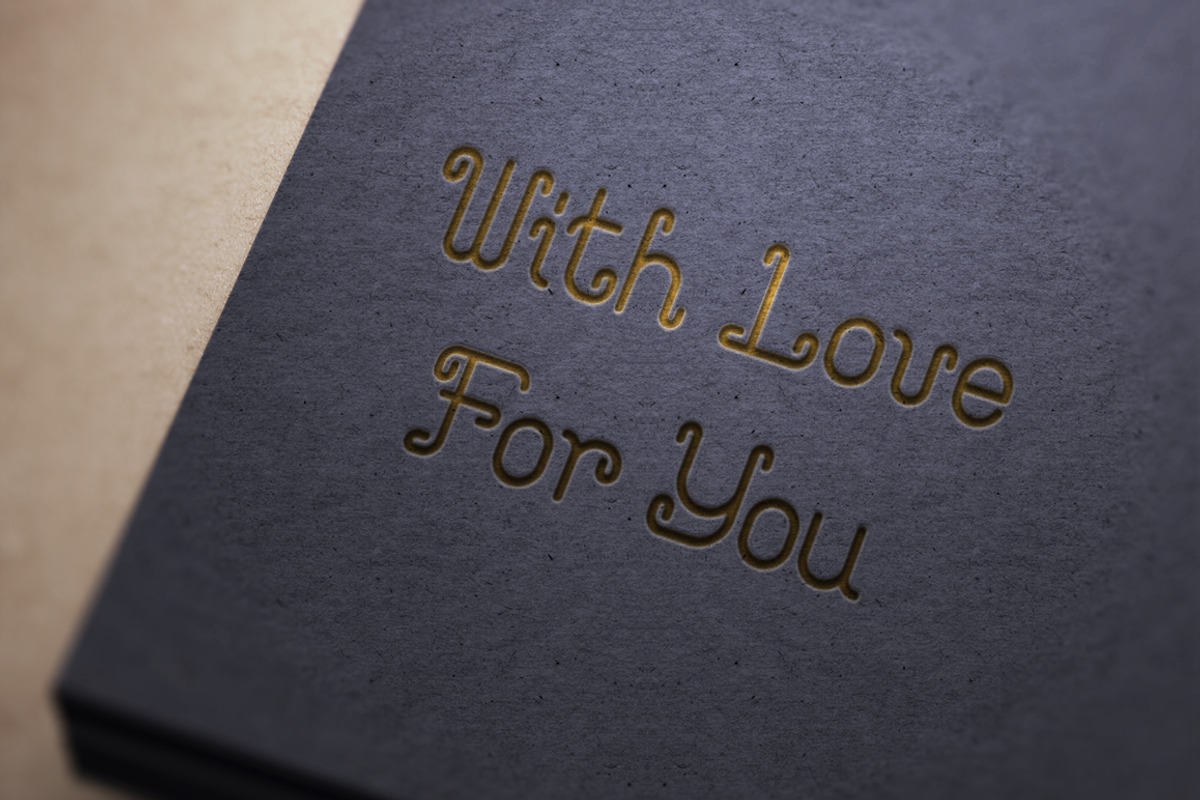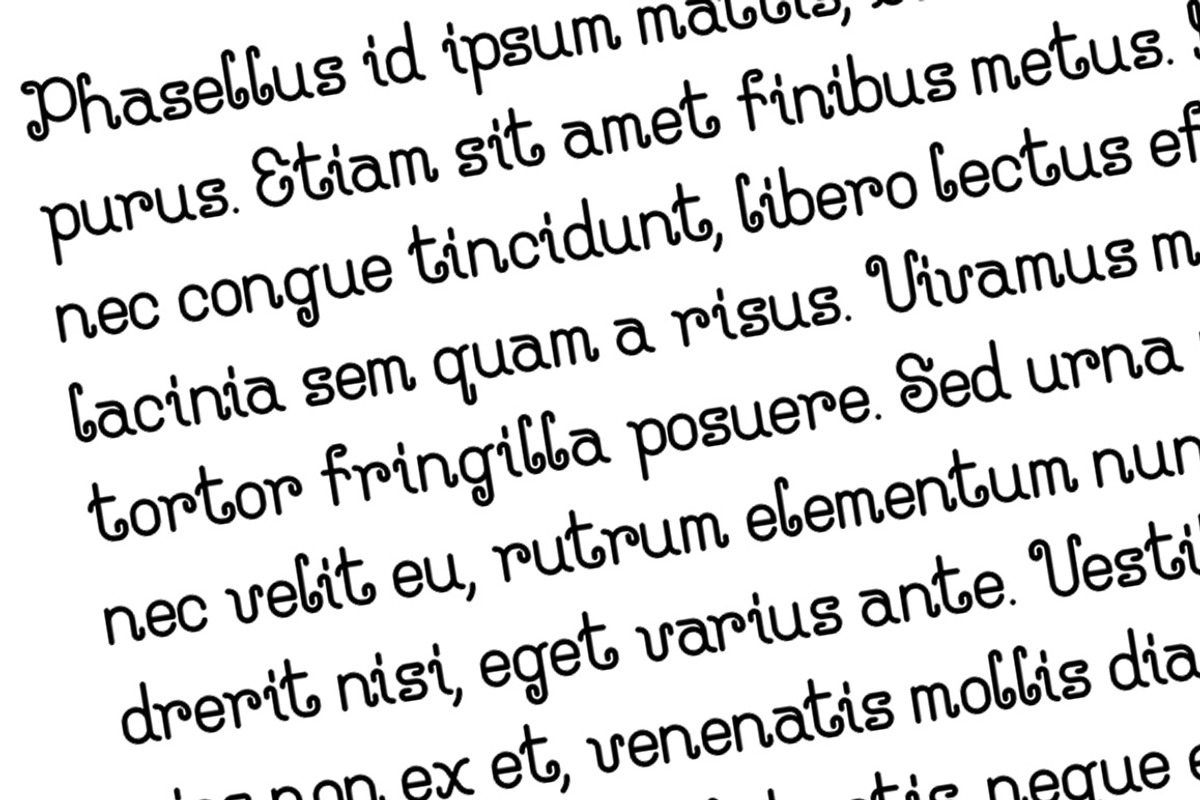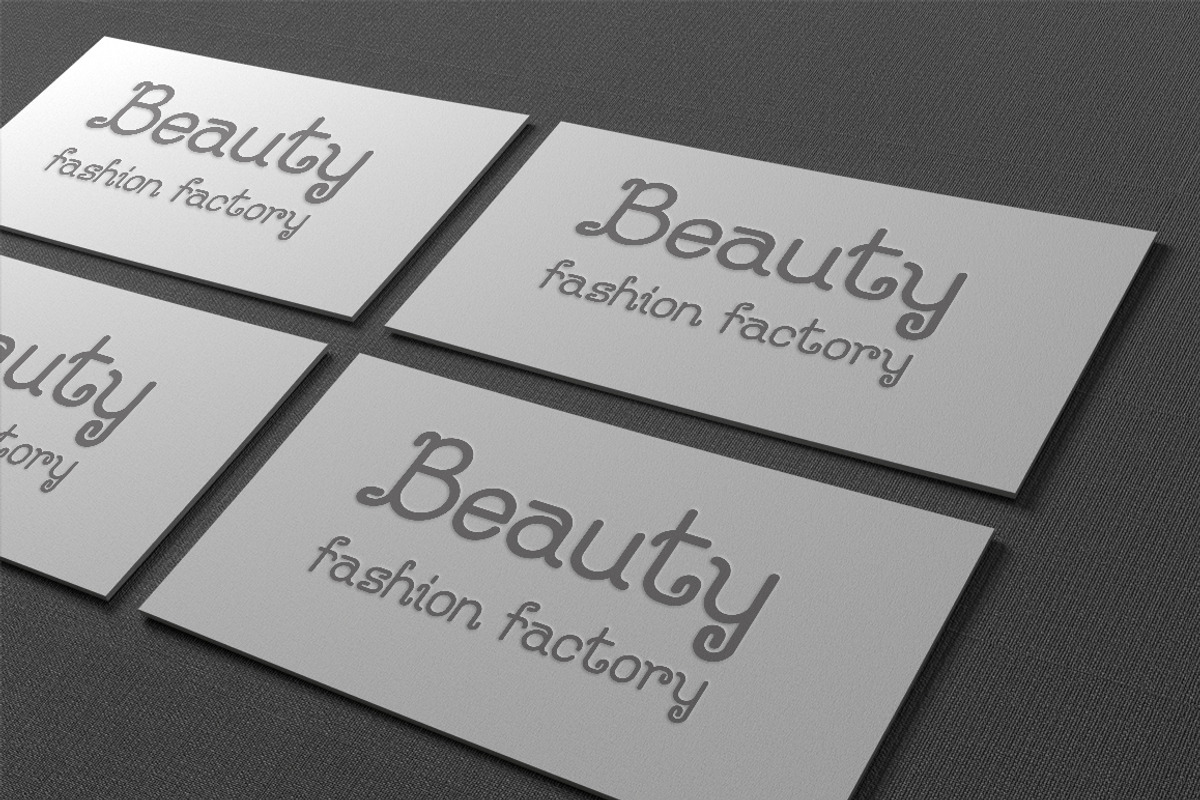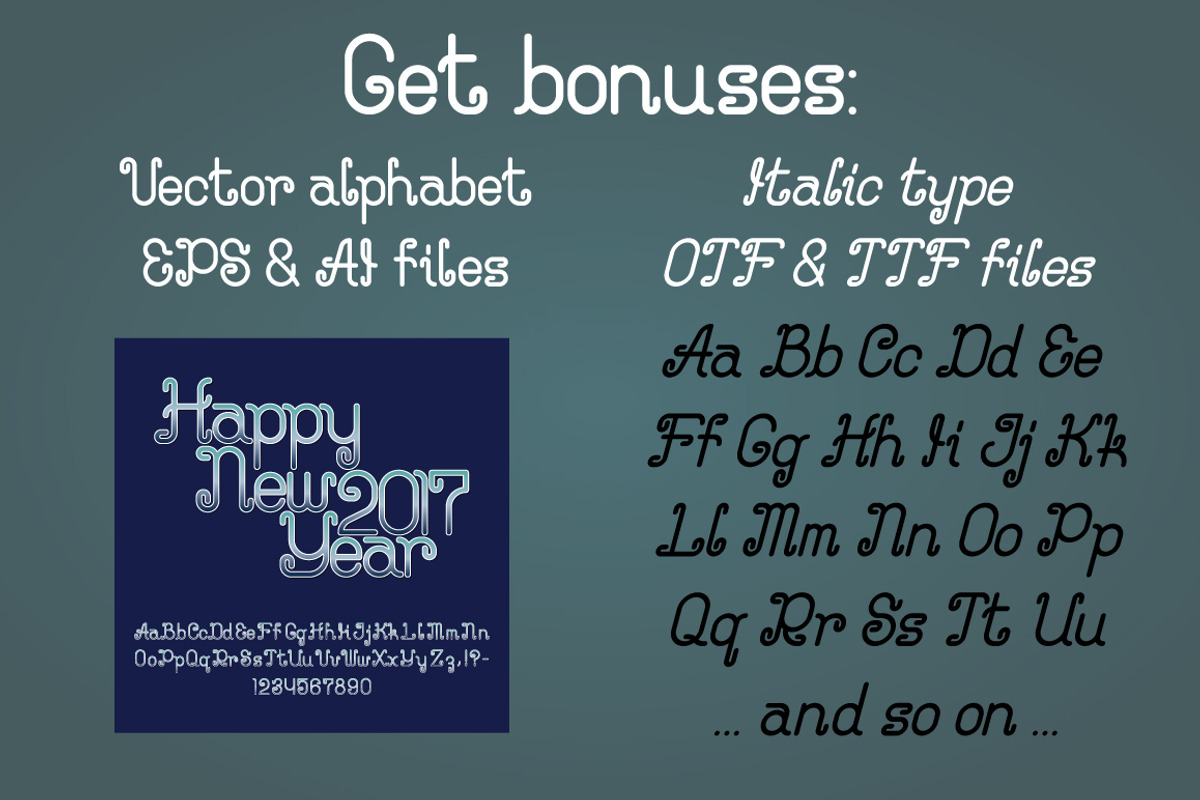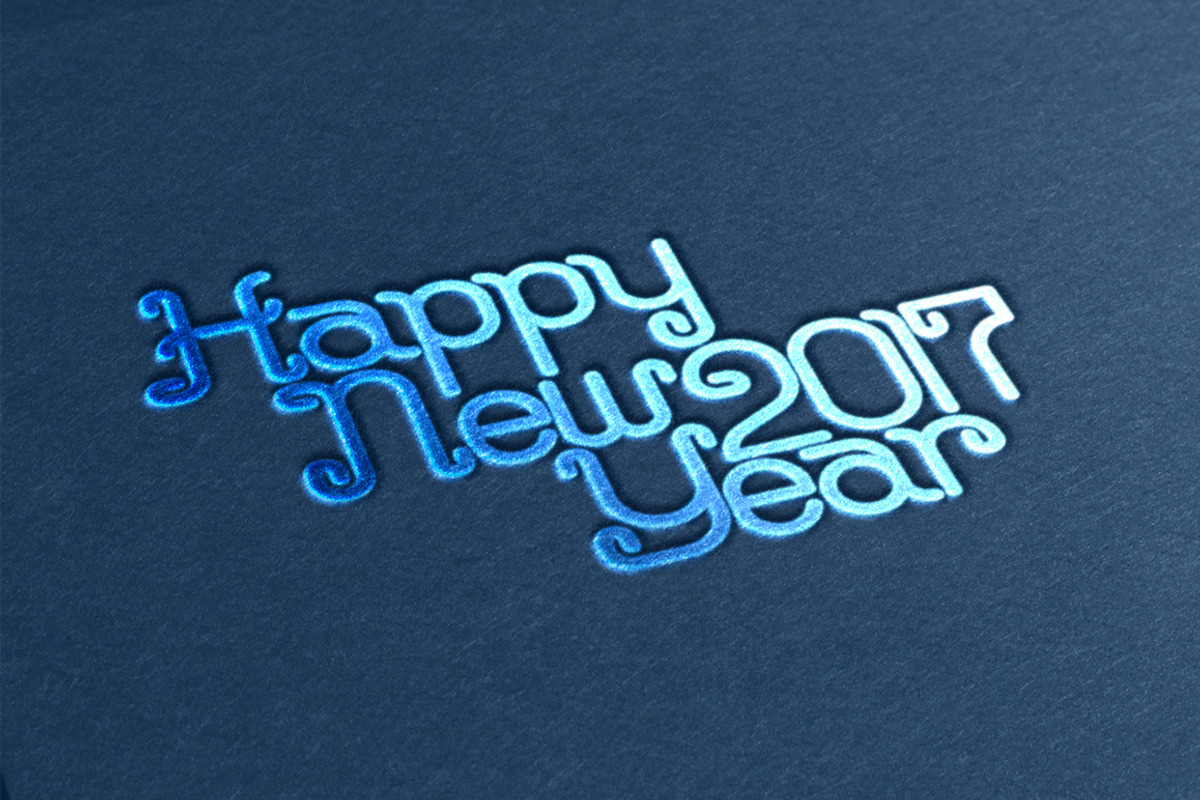
Curlittos Curly Font
Curlittos Curly Font by Guten Tag Vector is a font selected for branding, posters, packaging, typography.
- Curlittos-Regular is elegant rounded font that consists of uppercase and lowercase letters, numbers special and non-English characters.
Why Curlittos Curly Font is worth a look
Curlittos Curly Font by Guten Tag Vector fits naturally into Branding, posters, packaging, typography.